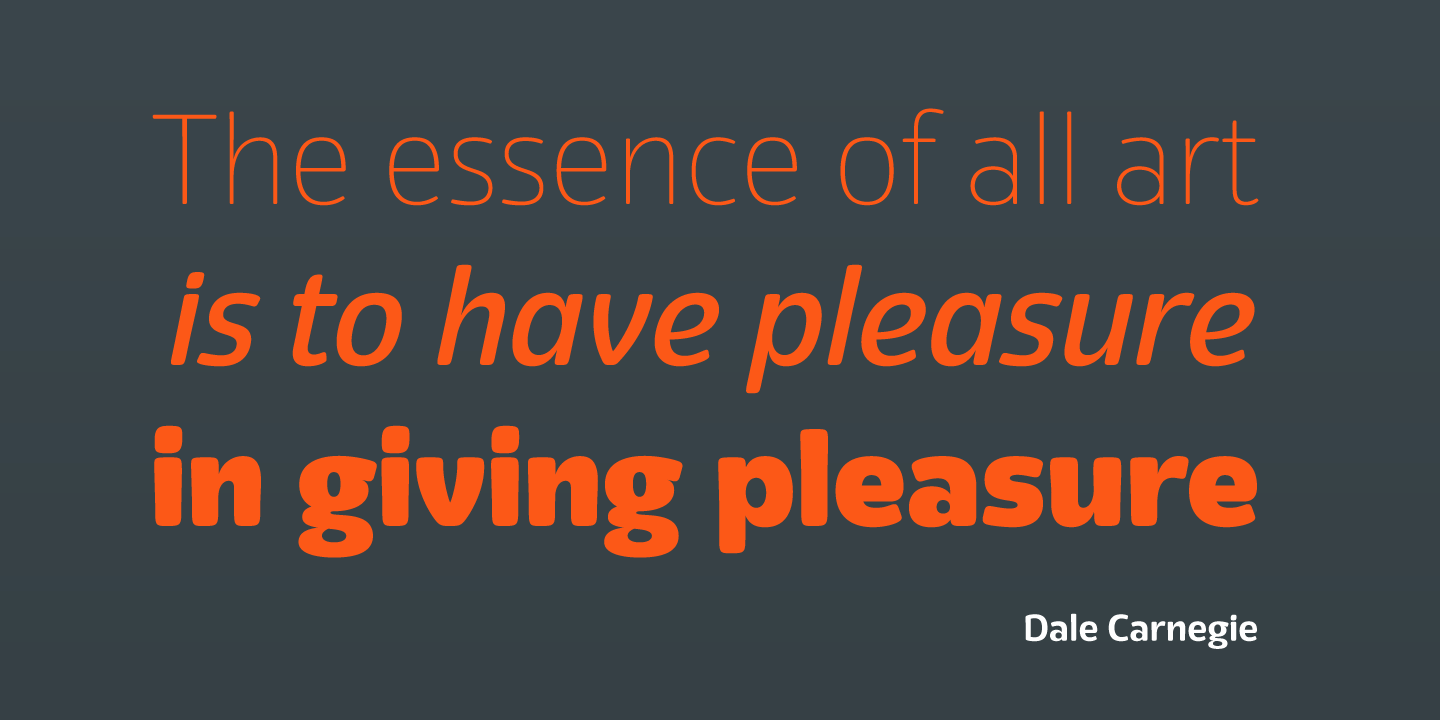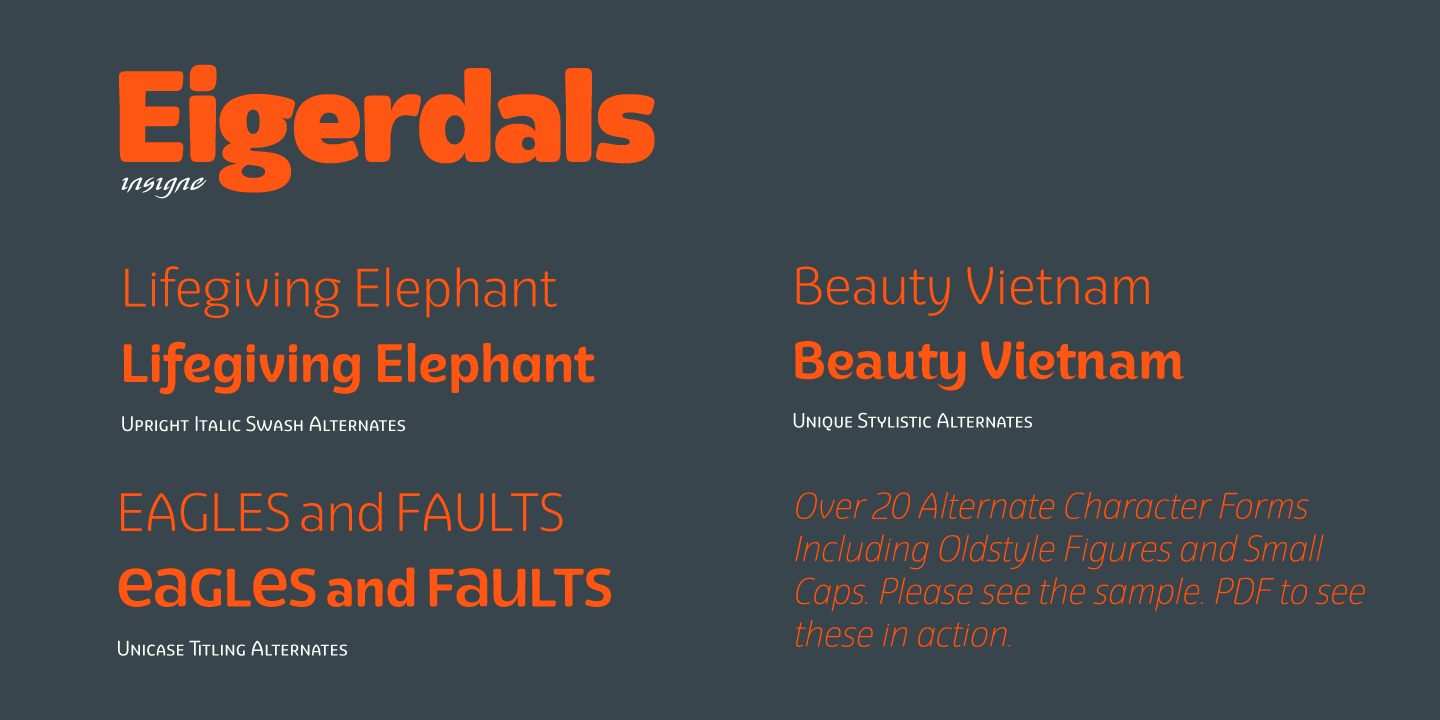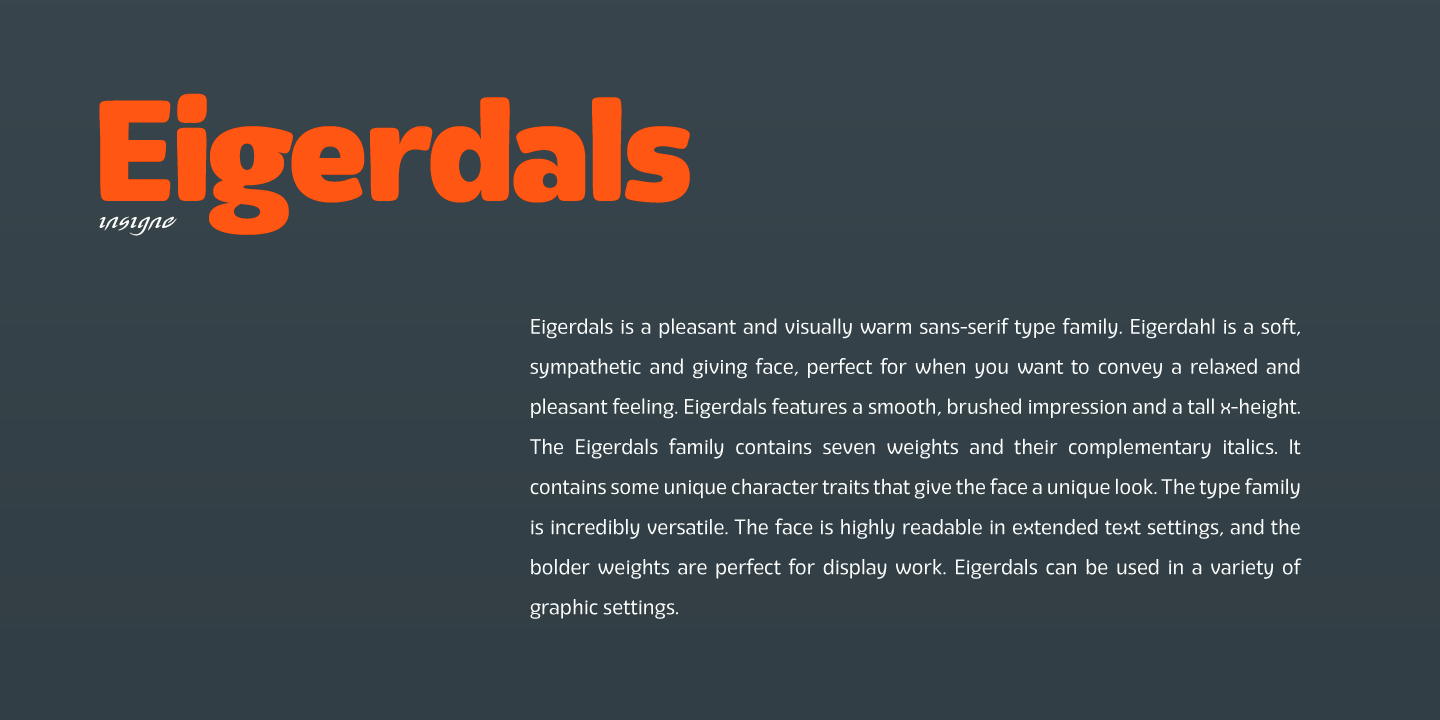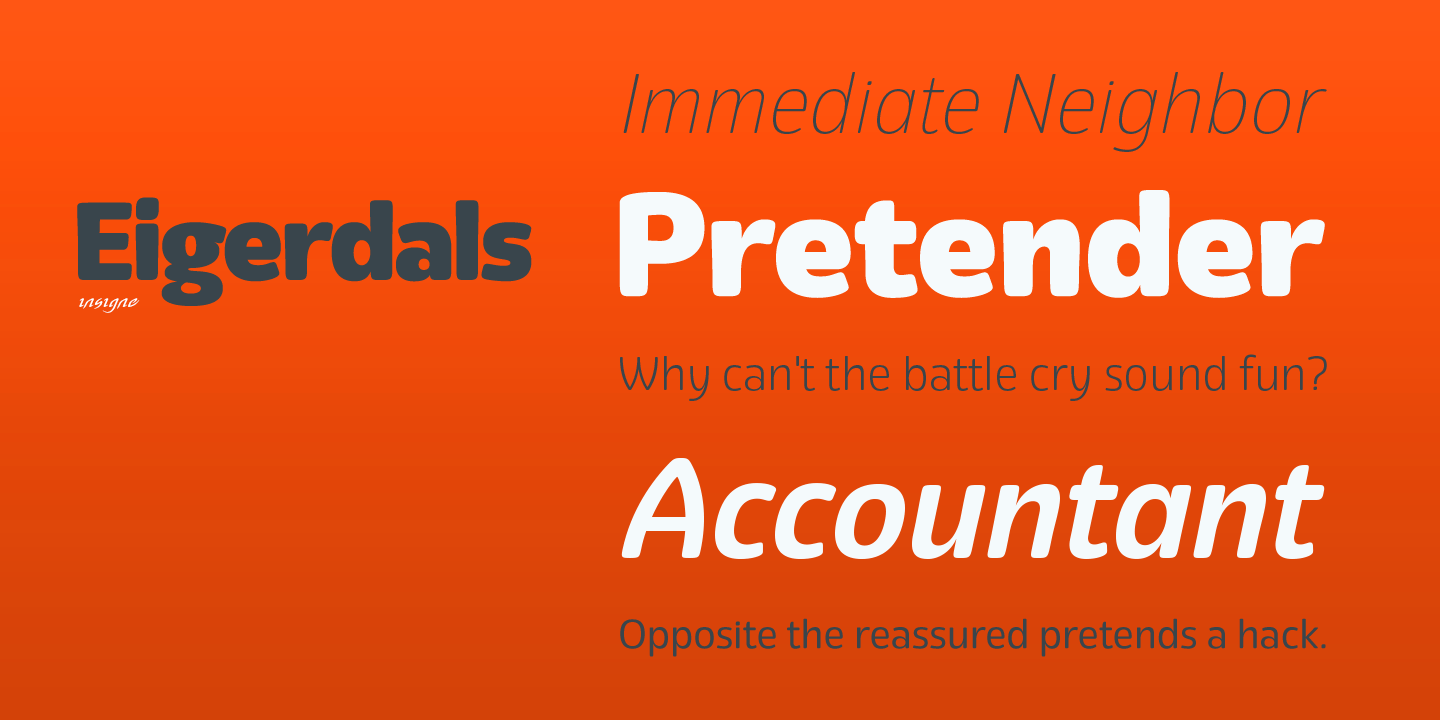
Eigerdals
Font Family by Insigne
Buy NowEigerdals is a pleasant and visually warm sans-serif type family. Eigerdahl is a soft and amiable face, perfect for when you want to convey a relaxed and pleasant feeling. Eigerdals features a smooth, brushed impression and a tall x-height. The characters are slightly top heavy in the heavier weights to give it a friendly feel.
The Eigerdals family contains seven weights and their complementary italics. It contains some unique character traits that give the face a unique look, and the type family is incredibly versatile. The face is highly readable in extended text settings, and the bolder weights are perfect for display work. Eigerdals can be used in a variety of graphic settings.
Eigerdals includes many useful OpenType features, including a set of upright italic swash alternates, ligatures and unicase alternates.